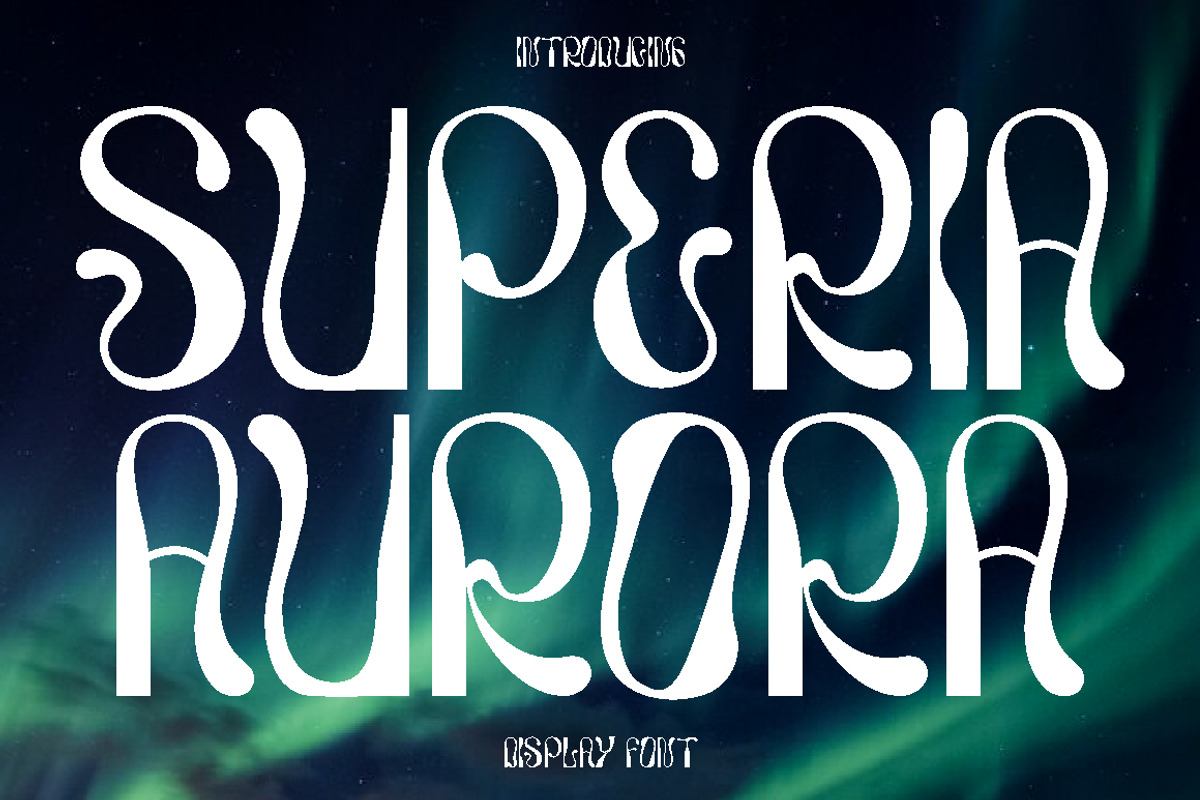
Superia Aurora - Display Font Free Download
Superia Aurora - Display Font Free Download is a striking and futuristic typeface designed to capture attention and make bold statements. Perfect for headlines, posters, album covers, and digital art, this display font combines sleek curves with sharp edges for a dramatic and modern aesthetic.
With its unique letterforms and high-impact style, Superia Aurora adds a sense of innovation and creativity to any project. Whether you're creating a sci-fi inspired layout or branding for a tech-forward startup, this font delivers maximum visual punch.
Designers seeking something out of the ordinary will find Superia Aurora to be a game-changer. It's versatile enough for both experimental and professional use. Explore its bold energy and upgrade your design toolkit—Superia Aurora - Display Font Free Download is just a click away.